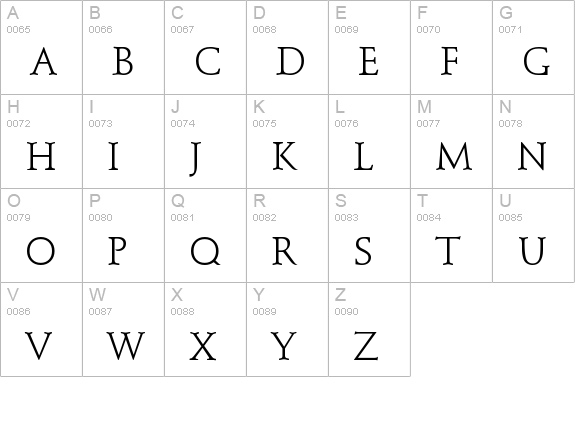
Schroeder Normal is the standard, neutral variant in the Schroeder typeface family \xE2\x80\x94 well suited to general body text, paragraphs, and standard typographic work.
Schroeder Normal font is a stunning typeface that exudes elegance and sophistication. Its clean lines and balanced proportions make it perfect for a wide range of design projects, from branding and advertising to editorial layouts and signage. With its timeless appeal, Schroeder Normal font is sure to make a lasting impression. Its classic yet contemporary design effortlessly combines traditional elements with a modern twist, resulting in a versatile and visually pleasing font that can adapt to any design concept. One of the standout features of Schroeder Normal font is its readability. The carefully crafted letterforms ensure that every character is clear and legible, even at small sizes. This makes it an ideal choice for body text, ensuring that your message is effectively communicated to your audience. But what truly sets Schroeder Normal font apart is the fact that it is free. Yes, you read that right! This exceptional font is freely available to download at FontsMarket.com. Whether you're a professional designer or a hobbyist, you can access this amazing font without any cost, making it an incredible asset for your creative endeavors. So why wait? Discover the beauty and versatility of Schroeder Normal font today. Download it for free at FontsMarket.com and elevate your designs to new heights. Unleash your creativity and let Schroeder Normal font be your go-to choice for all your typographic needs.